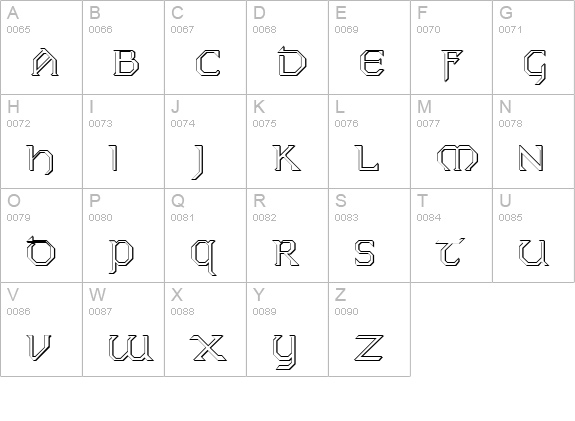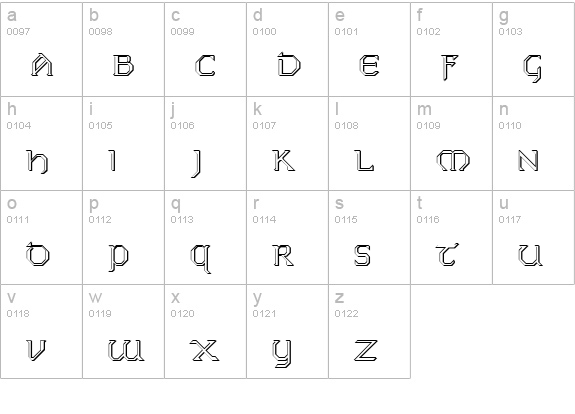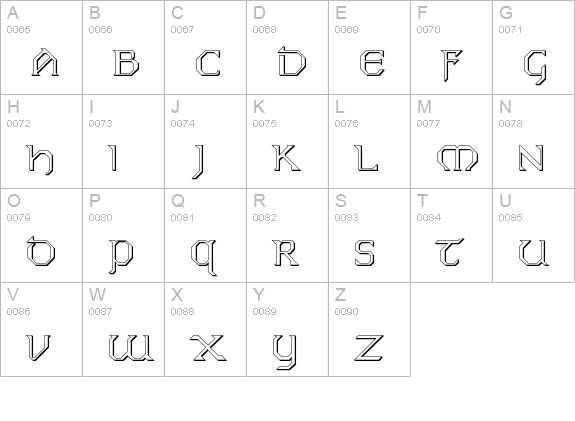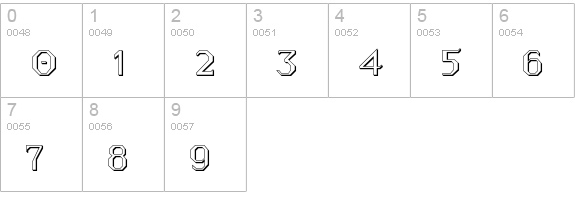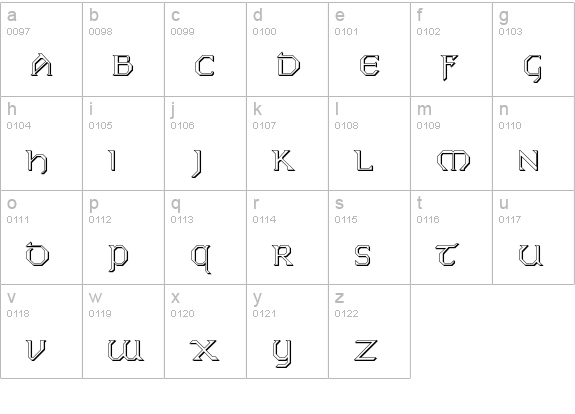
FZ JAZZY 31 3D Font Details
Introducing the FZ JAZZY 31 3D font, a stylish and eye-catching typeface that will add a touch of pizzazz to your design projects. This unique font features a 3D effect that gives it a dynamic and modern look, making it perfect for headings, logos, posters, and more. With its bold and playful aesthetic, FZ JAZZY 31 3D font is sure to make a statement and draw attention to your work. The best part is, this fantastic font is available for free download at FontsMarket.com. You can easily get your hands on this versatile typeface and start incorporating it into your designs right away. Don't miss out on the opportunity to add a touch of fun and creativity to your projects with the FZ JAZZY 31 3D font. Download it now and let your creativity shine!